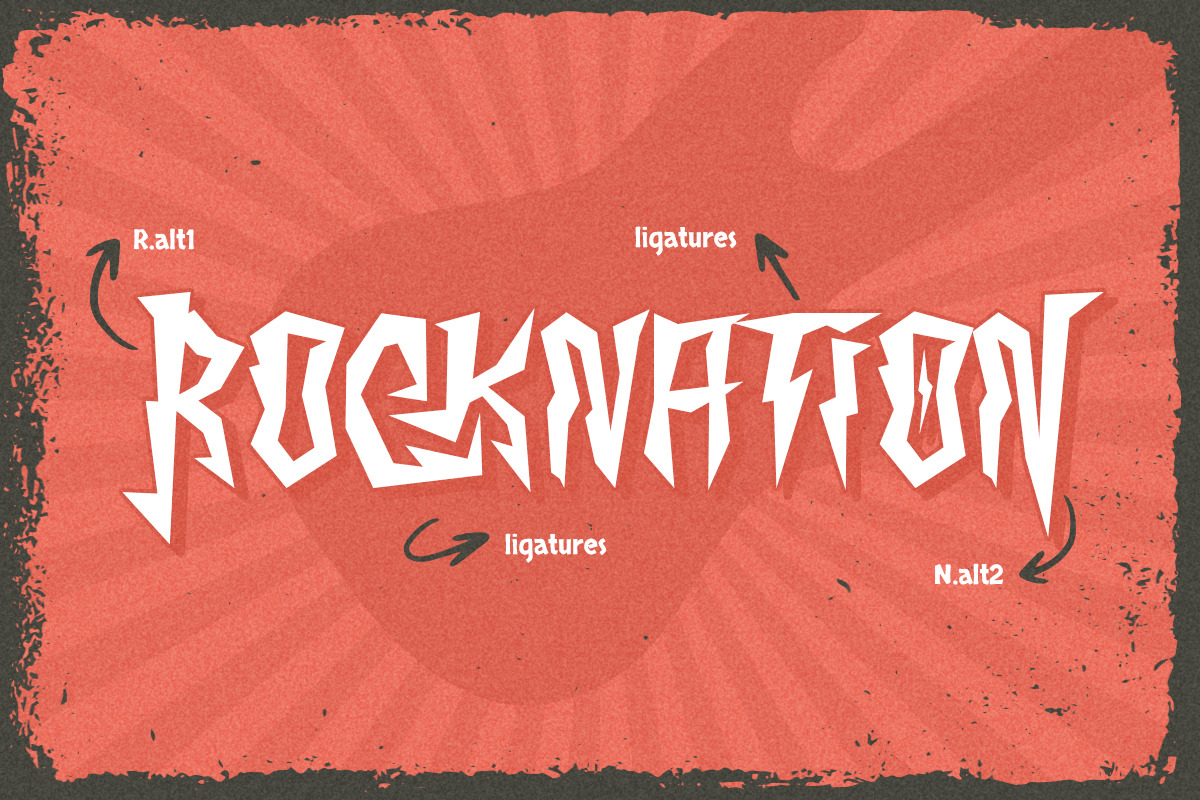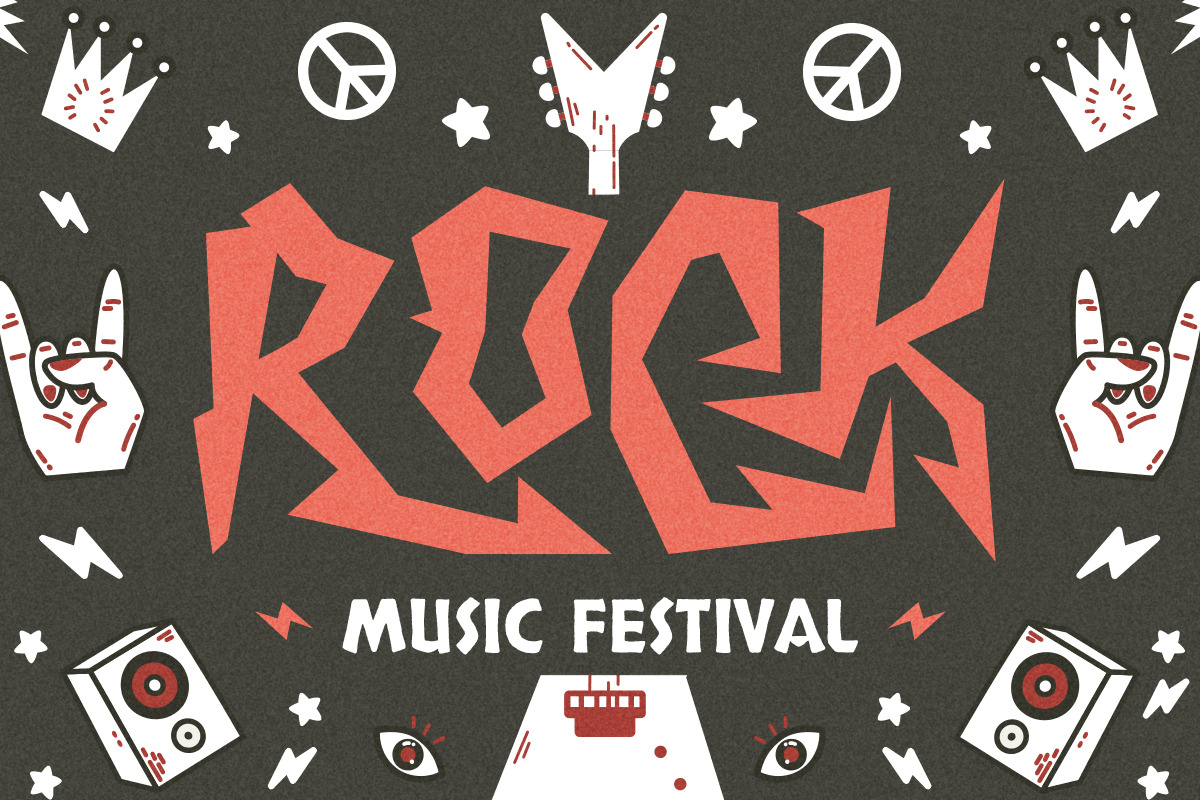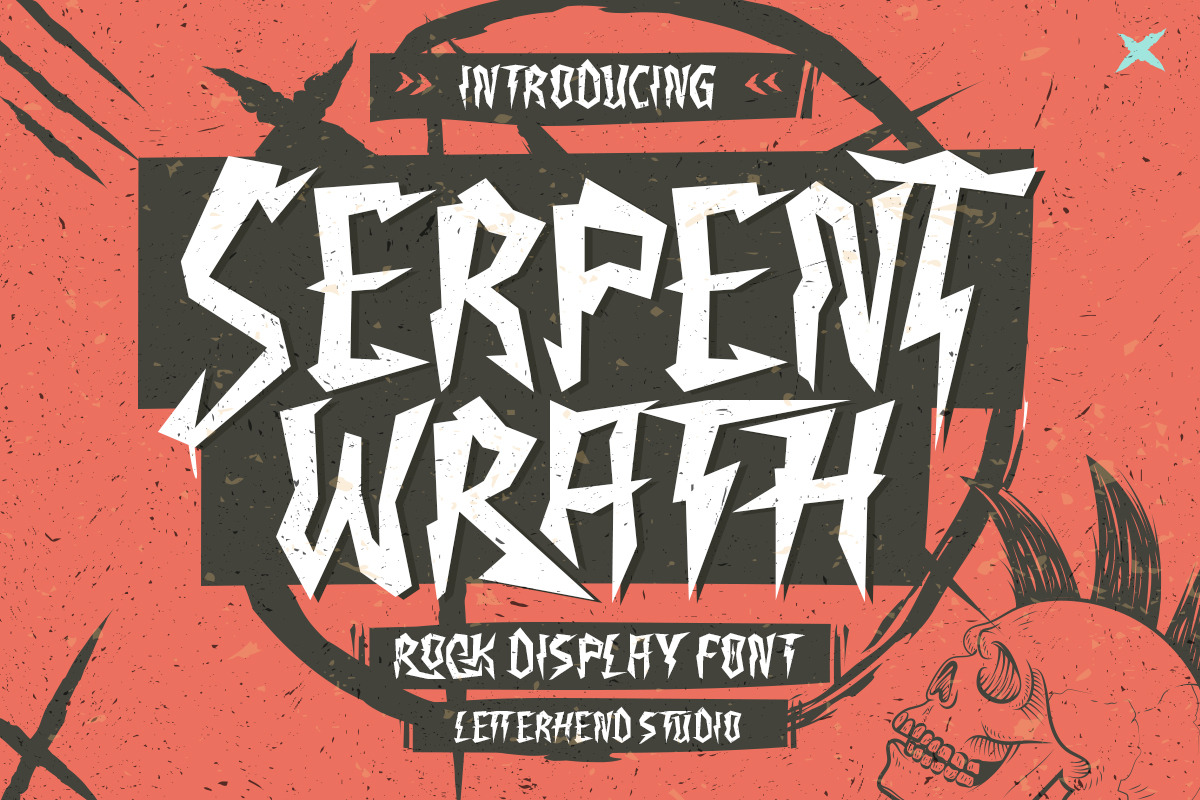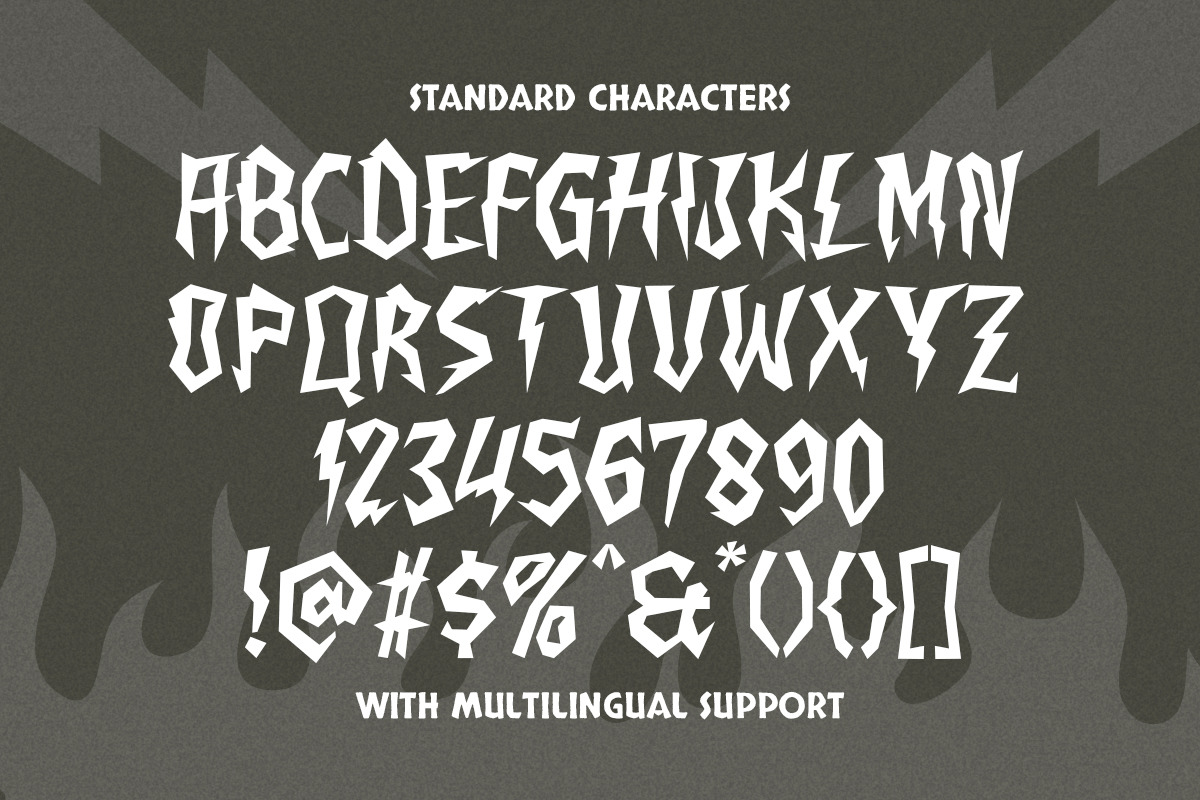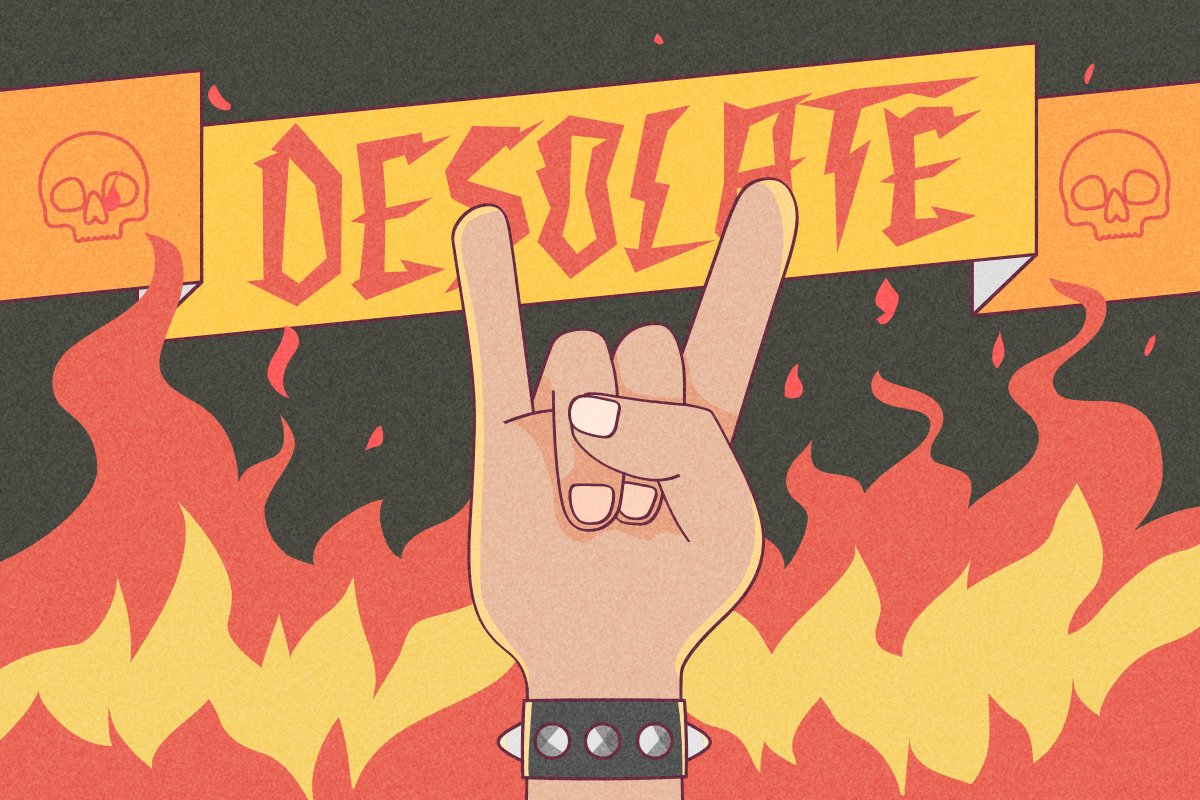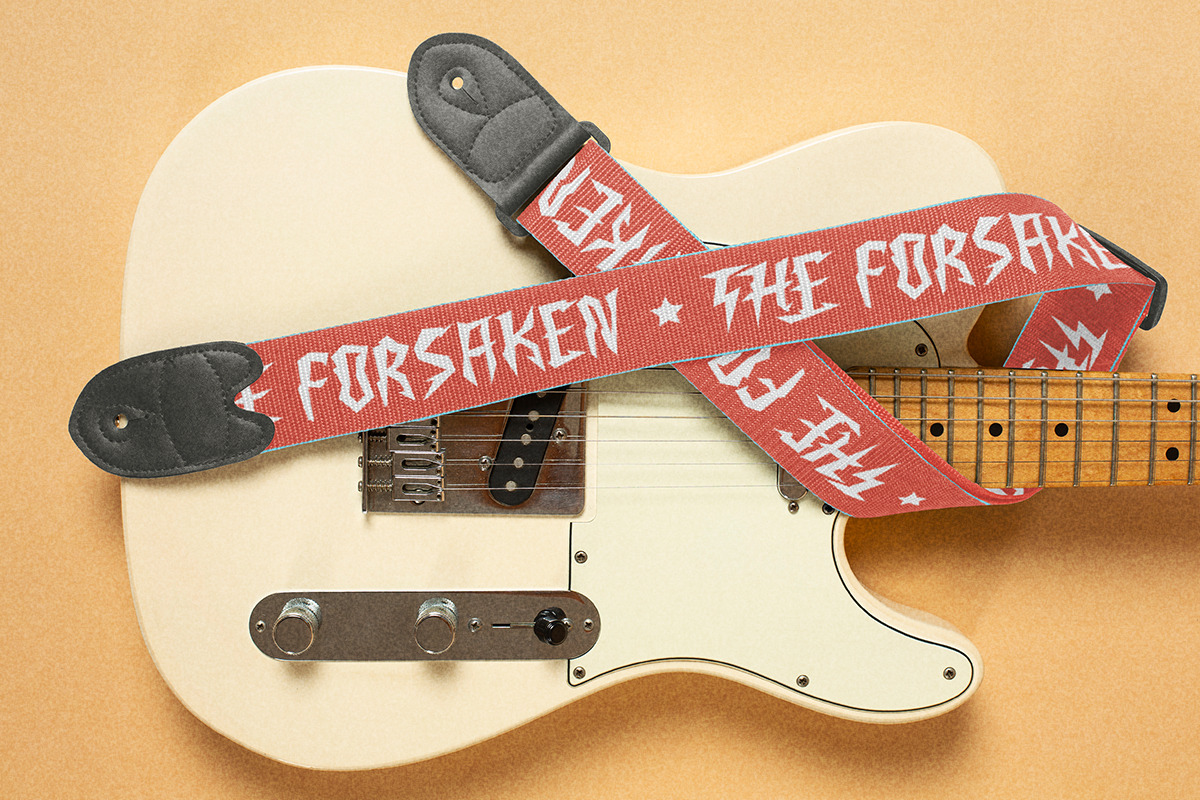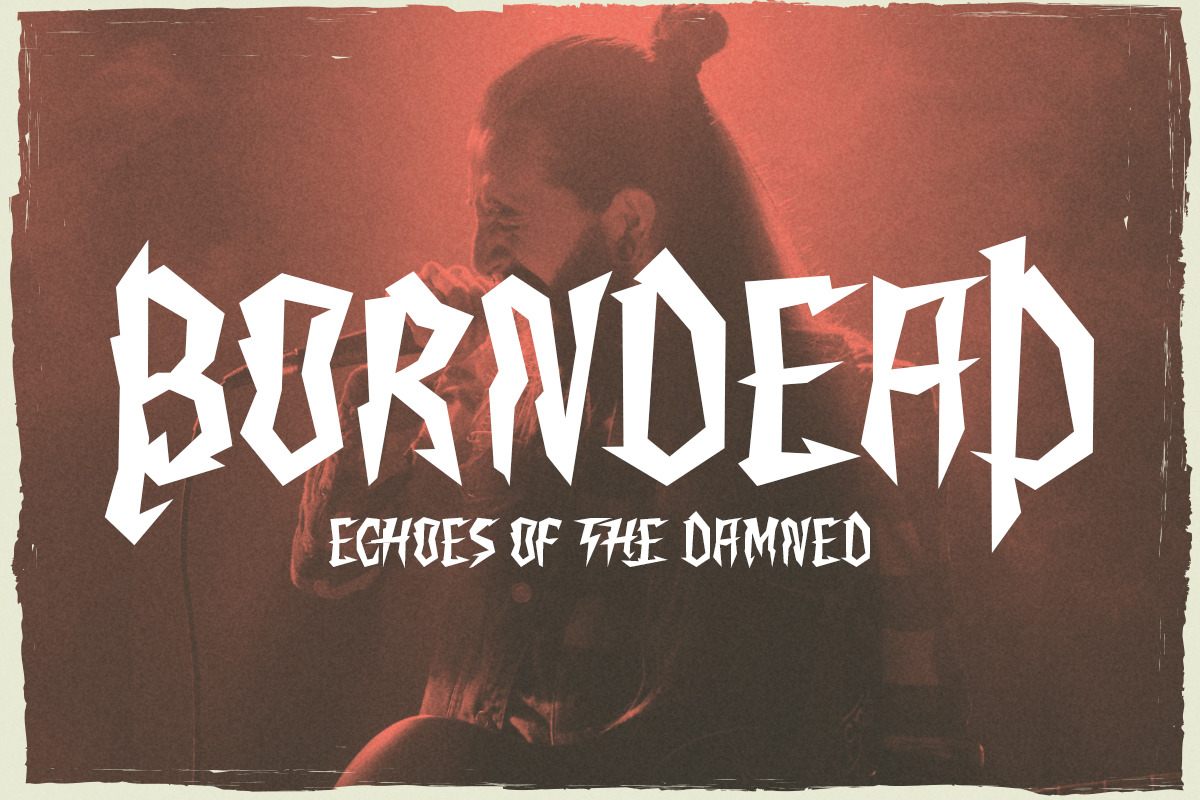
Serpent Wrath - Rock Display Font
Serpent Wrath is a rockin’ display font with hardcore black metal vibes. Mix and match alternate characters to create something truly unique. Perfect for logos and anything that needs a bold statement—from event poster and labels to magazines and your brand packaging. Serpent Wrath adds a fierce but funky touch to any project.